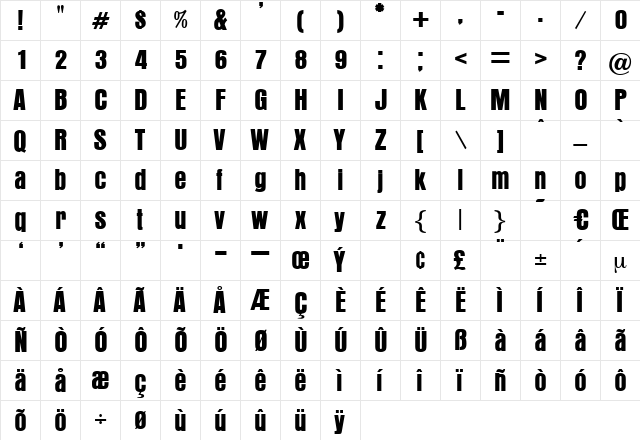
Ostara Regular
Design Context for Ostara Typeface
Ostara takes a measured approach to typography — its balanced proportions and neutral character make it a reliable workhorse for both digital and print work.